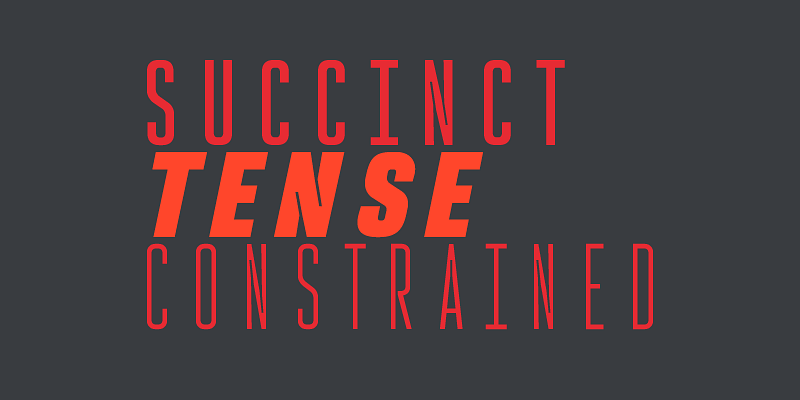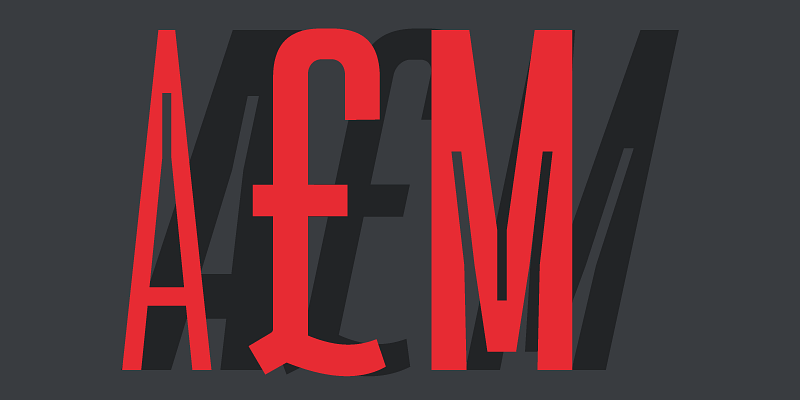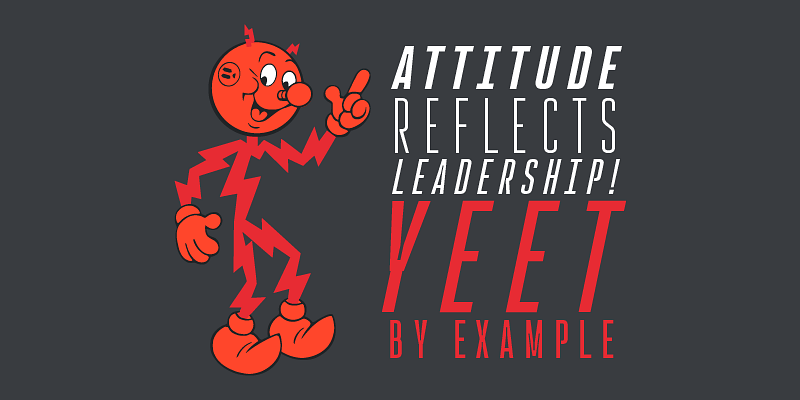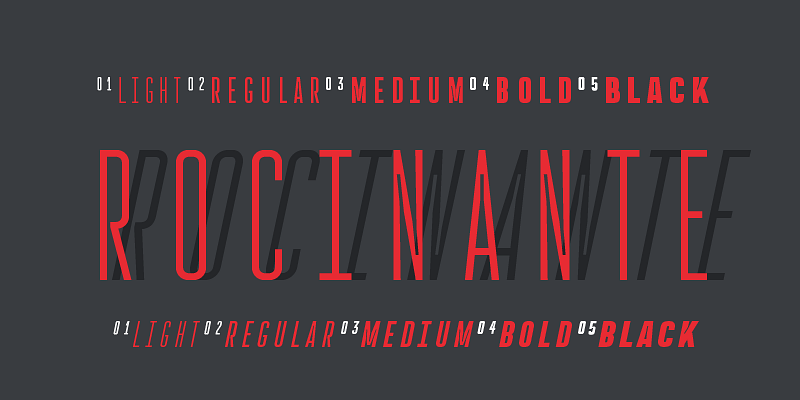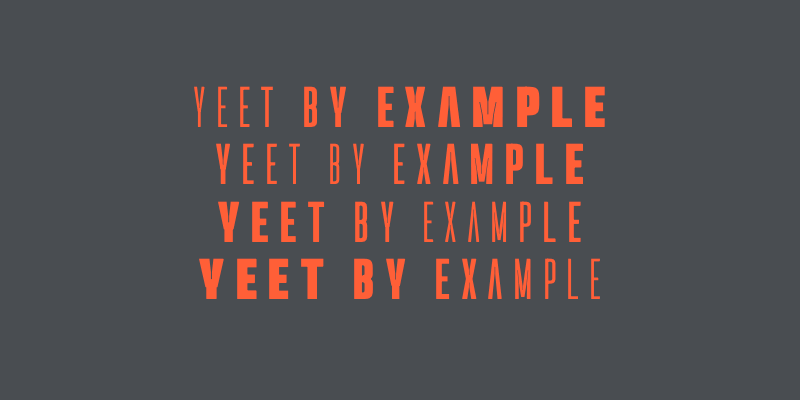
Rocinante Titling Variable is a study in interior and exterior tension packed into a tall, somewhat geometric frame. Lightwells, expanded and enlarged to declare them a design detail and not just a functional compensation, define narrow spaces where strokes must bend to intersect. Rocinante Titling’s stroke weights and spacing match all those of Havelock Titling. Make new combinations while retaining rhythm.